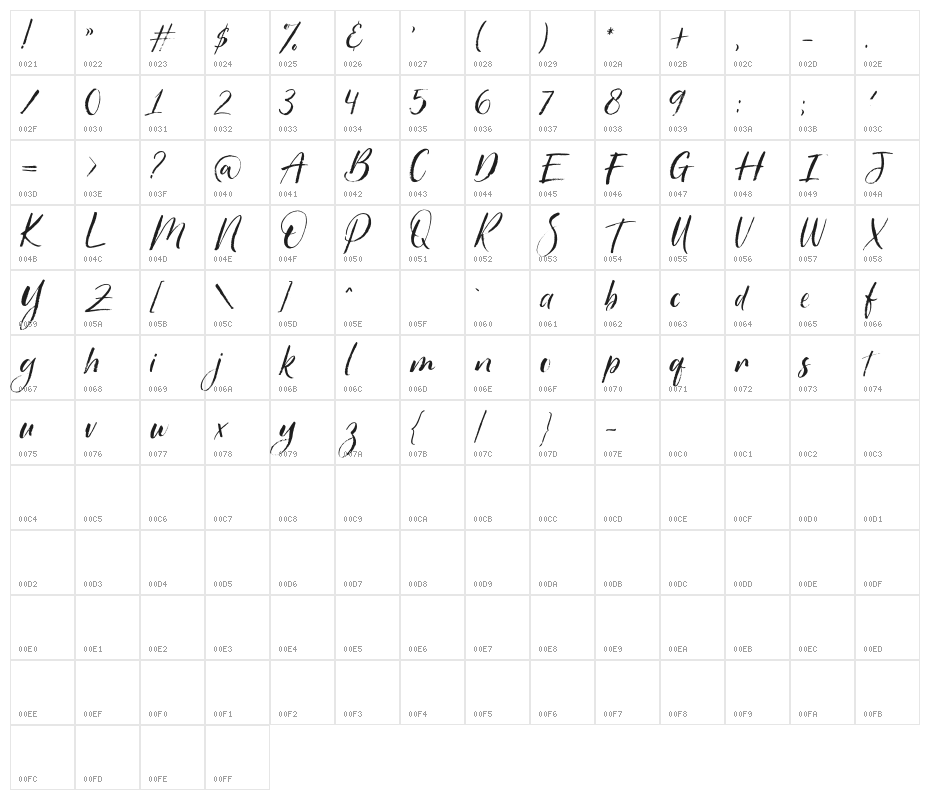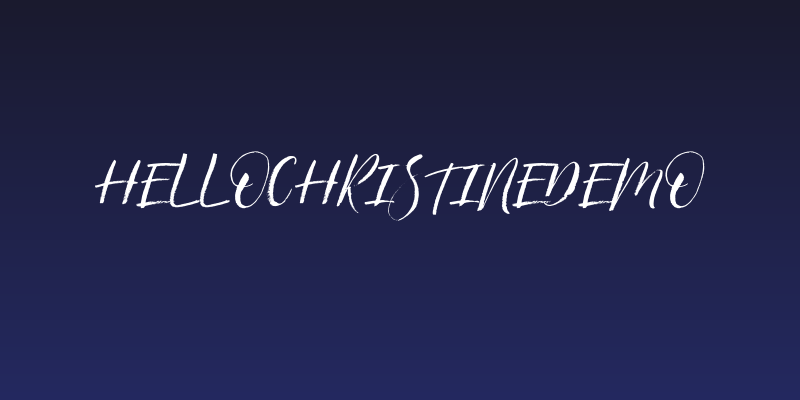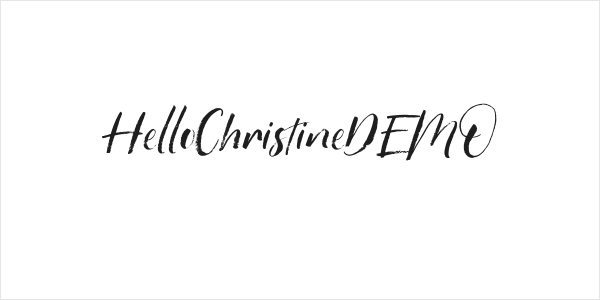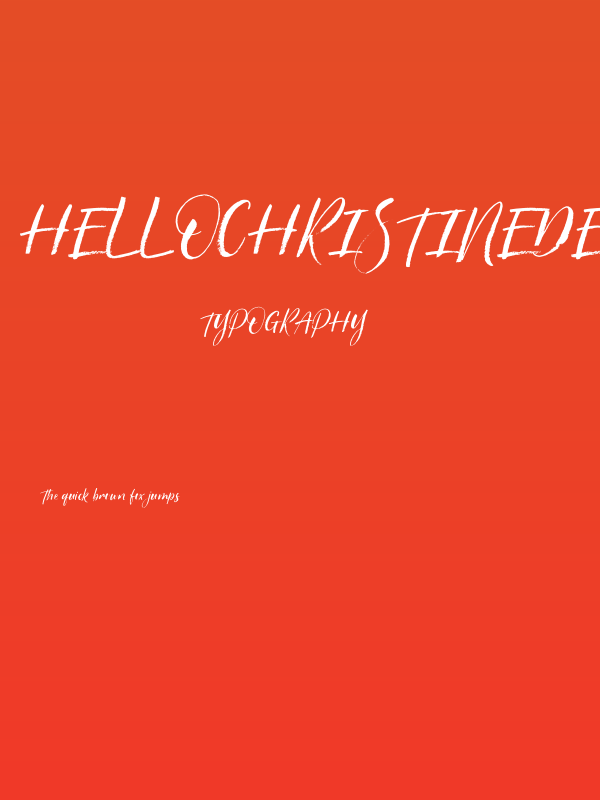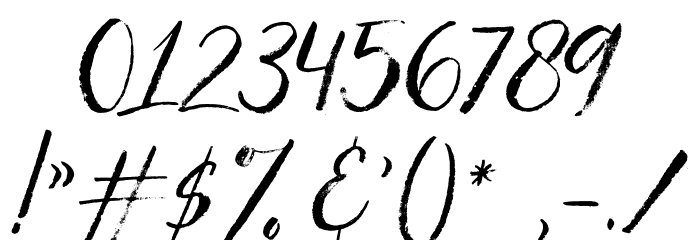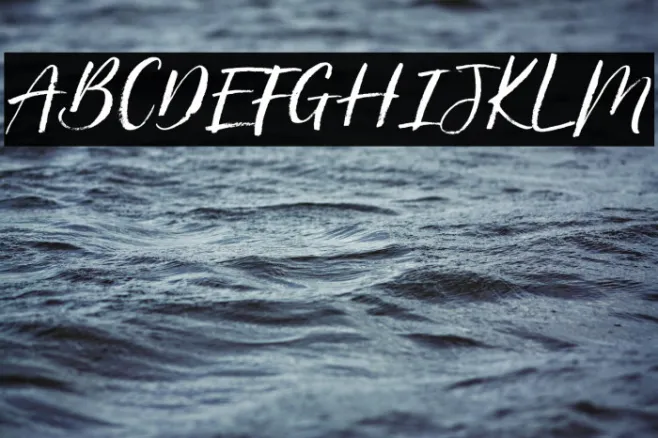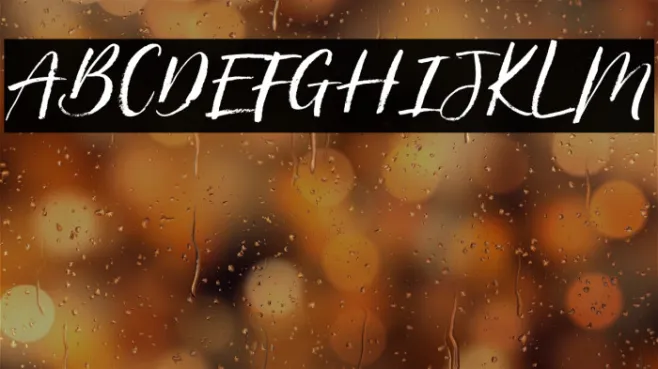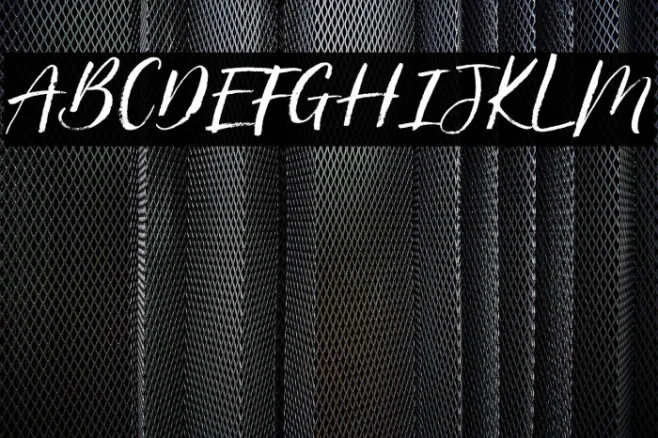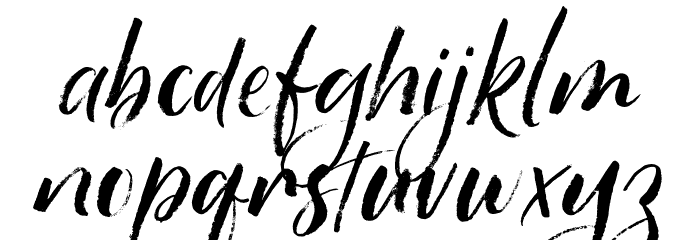
HelloChristineDEMO Font
HelloChristineDEMO Description
This expressive script font features a dynamic and fluid style, reminiscent of hand-painted brush strokes. The characters are elegantly elongated with a natural flow, creating a sense of movement and energy. The uppercase letters are bold and confident, while the lowercase letters maintain a graceful continuity. The numerals and special characters are designed with the same artistic flair, ensuring consistency across all glyphs. The texture of the strokes adds a tactile quality, making it ideal for projects that require a personal touch. Its artistic nature makes it suitable for creative and expressive design applications.
| Proposed Projects | Ideal for wedding invitations, greeting cards, artistic posters, and branding projects that require a personal and creative touch. |